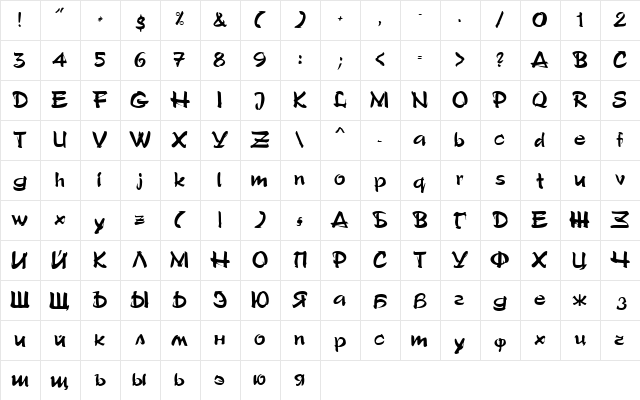
Stylo Bold
| Designer | D-Studio; Dubina Nikolay; Moscow |
Design Context for Stylo Typeface
Stylo is a composed and adaptable typeface that performs quietly and consistently across a wide range of design contexts. The heavy weight commands attention and anchors typographic hierarchies.